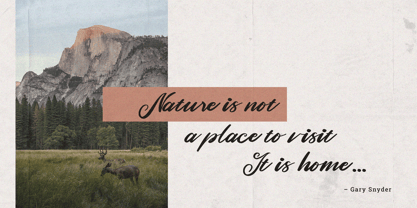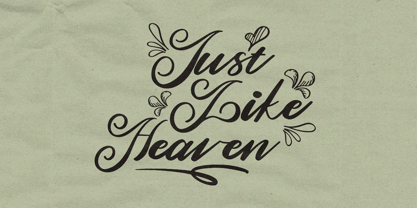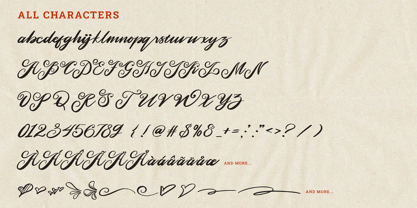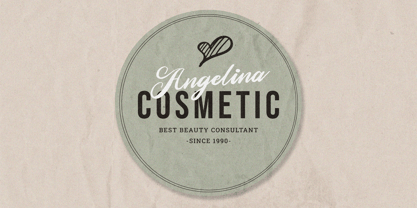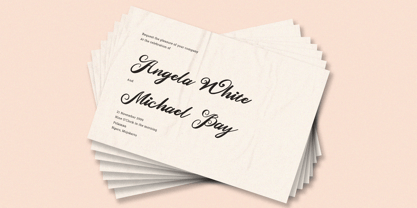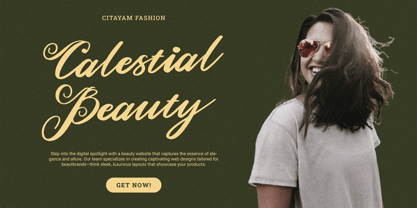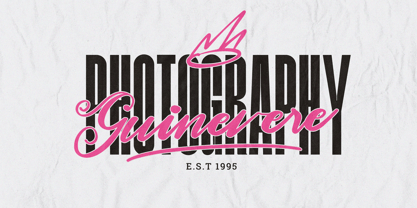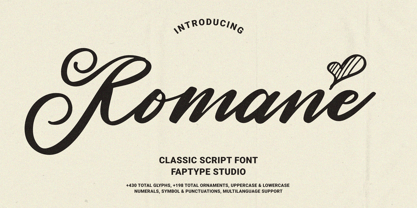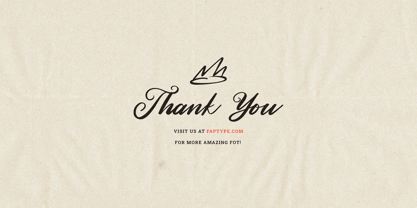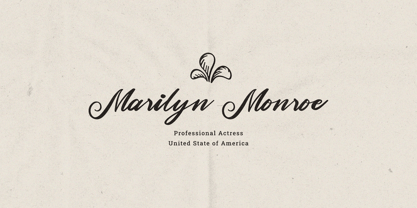
Romane
by Ferry Ardana Putra
The Romane Font Family was designed by Ferry Ardana Putra and published by Ferry Ardana Putra. Romane contains 1 styles. More about this family
Introducing Romane, a refined classic script font designed to bring elegance and timeless beauty to your creative projects. Romane combines the graceful curves of traditional calligraphy with a modern polish, creating a look that is both sophisticated and approachable. Each stroke and flourish has been carefully crafted to evoke the charm of hand-lettered artistry, making Romane perfect for applications that demand an extra touch of refinement.
Ideal for branding, invitations, packaging, and editorial projects, Romane seamlessly blends luxury with legibility, making it versatile for both personal and commercial use. Its smooth flow and balanced weight allow for exceptional readability, while its unique character adds a distinguished look to any text. Whether you’re creating a wedding invitation, a high-end logo, or an editorial spread, Romane delivers sophistication that resonates.
Romane Features:
• A full set of upper & lowercase characters
• Numbers & punctuation
• Multilingual language support
• +429 Glyph
• 198 Brush Swashes